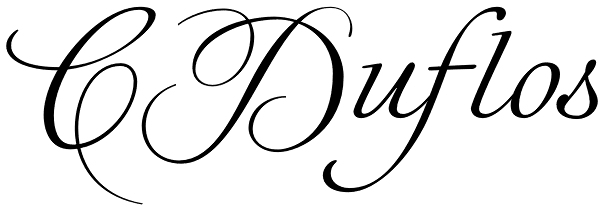
CDuflos
Claude Duflos was a French engraver and printmaker at the end of the 1600s. He produced a great number of beautiful plates, executed principally with the graver very neatly finished. At the base of his work we can appreciate his legible lettering...
CDuflos Pro
CDuflos